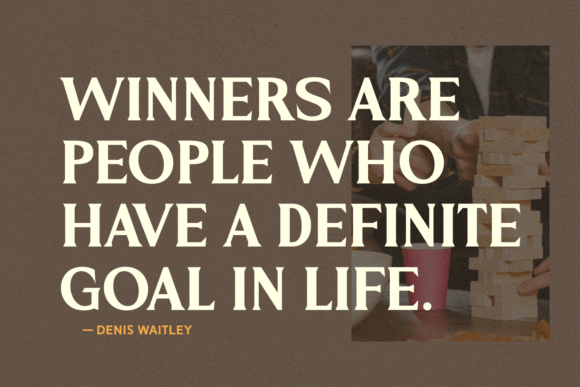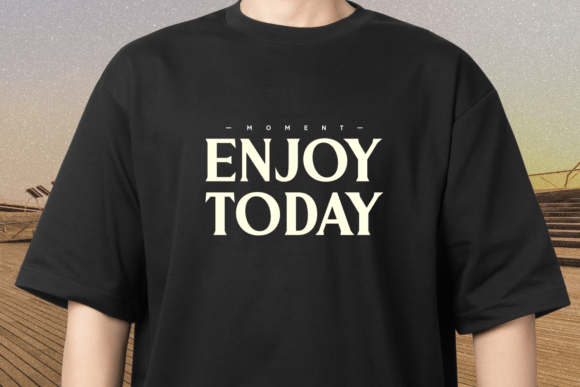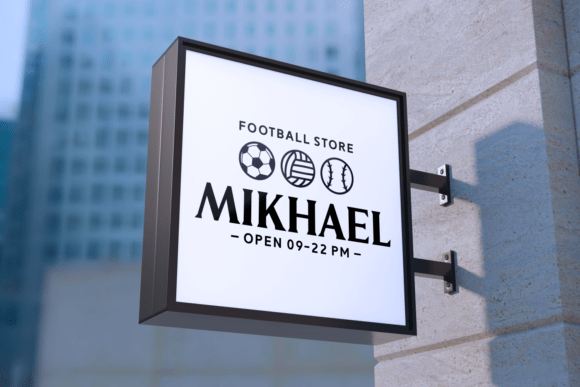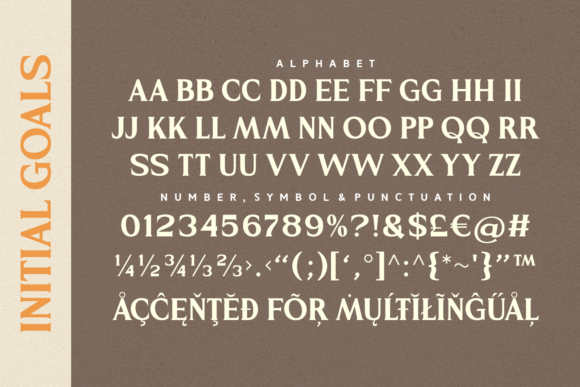
Introduction to Initial Goals Font
Initial Goals is a bold serif typeface inspired by vintage editorial typography with a modern twist.
It features sharp, defined serifs, geometric structure, and a powerful presence, making it ideal for headlines, logos, packaging, and retro-inspired branding Whether youโre designing a rugged brand identity or crafting a vintage poster, Initial Goals gives your work a striking, timeless character.
Key Features of Initial Goals Font
Why Choose Initial Goals Font?